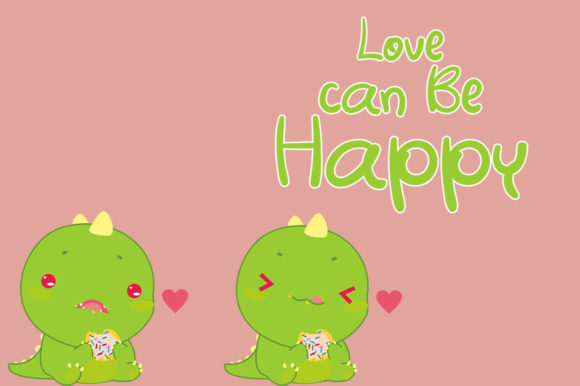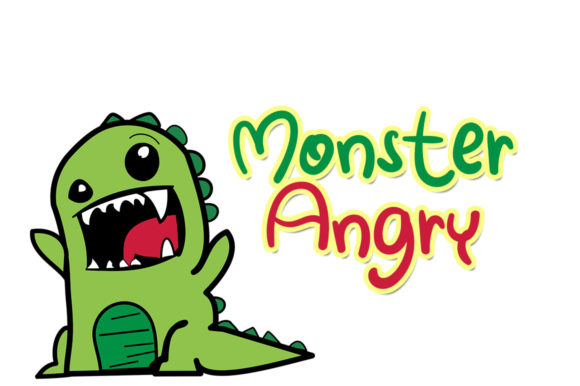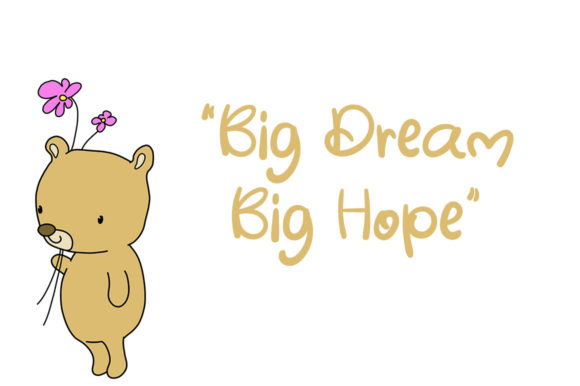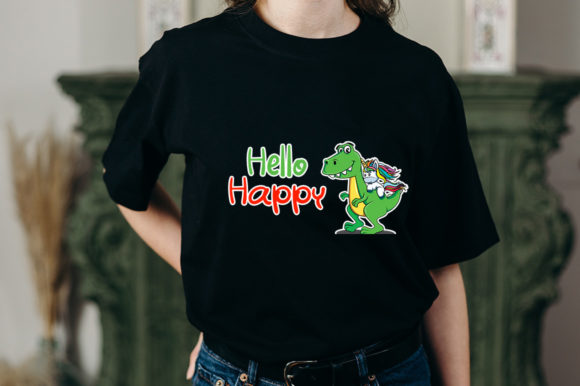
Dino Unicorn Font: Add a Touch of Whimsy to Your Designs
Are you a designer or crafter looking for a font that can add a personal and realistic feel to your designs? Look no further than the Dino Unicorn Font! This cute and simple lettered handwritten font is perfect for creating chalkboard quotes, teaching materials, and other designs that require a touch of whimsy.
What is Dino Unicorn Font?
Dino Unicorn Font is a handwritten font that is designed to mimic the look of chalkboard writing. Its authentic look and feel make it perfect for creating designs that require a personal and realistic touch. The font is simple, yet cute, making it suitable for a wide range of design projects, from educational materials to social media graphics.
Features of Dino Unicorn Font
- Cute and Simple Design: The Dino Unicorn Font has a cute and simple design that makes it perfect for creating designs that require a touch of whimsy.
- Handwritten Style: The font has a handwritten style that gives it a personal and realistic feel.
- Chalkboard Look: The font is designed to mimic the look of chalkboard writing, making it perfect for creating chalkboard quotes and other designs.
- Easy to Read: The font is easy to read, making it suitable for use in educational materials and other designs where readability is important.
Uses of Dino Unicorn Font
The Dino Unicorn Font is a versatile font that can be used for a wide range of design projects, including:
- Chalkboard Quotes: The font is perfect for creating chalkboard quotes, sayings, and phrases.
- Teaching Materials: The font can be used to create educational materials, such as worksheets, posters, and presentations.
- Social Media Graphics: The font can be used to create social media graphics, such as Facebook posts, Instagram graphics, and Twitter headers.
- Crafting Projects: The font can be used for crafting projects, such as making signs, banners, and other decorative items.
Benefits of Using Dino Unicorn Font
Using the Dino Unicorn Font in your designs can have several benefits, including:
- Personal Touch: The font adds a personal and realistic feel to your designs.
- Unique Look: The font has a unique look that sets it apart from other fonts.
- Versatile: The font is versatile and can be used for a wide range of design projects.
| Font Name | Dino Unicorn Font |
| Author | Mr.Soon Design |
The Dino Unicorn Font is a cute and simple lettered handwritten font that is perfect for creating chalkboard quotes, teaching materials, and other designs that require a touch of whimsy. Its authentic look and feel make it perfect for adding a personal and realistic touch to your designs. With its ease of use and versatility, the Dino Unicorn Font is a great addition to any designer’s or crafter’s toolkit.